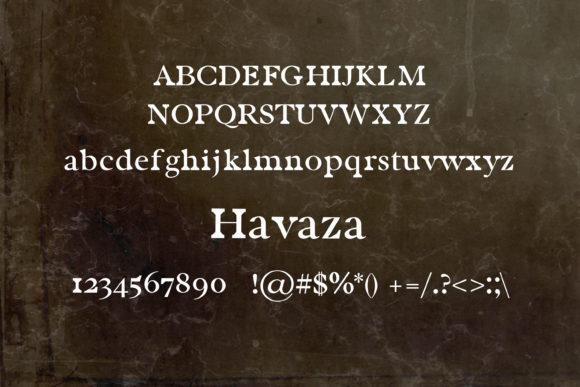
Introduction to Havaza Font
As designers, we’ve all been there – staring at a blank canvas, waiting for the perfect font to spark our creativity. It’s that moment when the right typeface can make or break a design project. For those seeking a unique and playful touch, look no further than the Havaza Font.
This friendly serif typeface is sure to capture your heart with its charming look and feel. Whether you’re working on a free design project or need a high-quality font for a commercial venture, Havaza Font is an excellent design resource that will elevate your creative project to the next level.
With its transparent background and versatile design, Havaza Font is perfect for designers who want to add a personal touch to their work without compromising on style or professionalism.
Key Features of Havaza Font
- High-quality design: Havaza Font is a well-designed font that can be used for various creative projects.
- Transparent background: The font has a transparent background, allowing you to easily place it over any image or design.
- High-resolution design: The font is designed with high resolution in mind, making it suitable for use in both print and digital designs.
- Perfect for creative projects: Havaza Font is a great addition to any design resource, and can be used for a variety of creative projects, from branding and advertising to editorial and publishing.
Honest Review: Havaza Font
As a designer, I’m always on the lookout for high-quality design resources to enhance my creative projects. Recently, I came across the Havaza Font, and I’m excited to share my thoughts on this font.
What works well is its versatility. The Havaza Font is a great addition to any design project, from graphic design to web development. Its clean and modern design makes it perfect for creating a professional look and feel. The font also comes in a free download format, which is always a bonus for designers on a budget.
Here are some of the key features that I like about the Havaza Font:
- High-quality design that’s perfect for print and digital projects
- Transparent background, making it easy to use with any design element
- Clean and modern design that’s perfect for creative projects
While the Havaza Font is a great resource, I do have a few limitations to note:
- Only available in a limited number of font styles
- Not ideal for projects that require a lot of customization
Overall, I’m impressed with the Havaza Font and would recommend it to designers looking for a high-quality design resource. While it may not be perfect, its versatility and clean design make it a great addition to any creative project.
The Havaza Font is versatile and can be used in a variety of creative projects, including graphic design, digital art, and even web design. Its transparent background feature makes it perfect for creating visually appealing backgrounds or overlays.